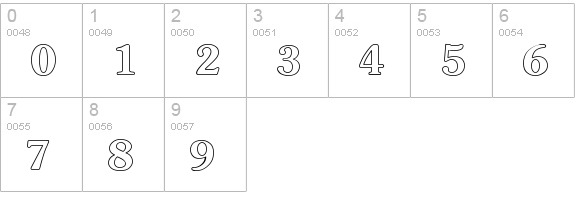
Souvenir-Light-Bold Hollow Font Details
Souvenir-Light-Bold Hollow is a refined, elegant variant in the Souvenir typeface family \xE2\x80\x94 well suited to elegant body text, refined sub-headings, and luxury branding.
Introducing Souvenir-Light-Bold Hollow font, a visually captivating typeface that effortlessly blends elegance and modernity. This exceptional font is perfect for adding a touch of sophistication to any design project, whether it be logos, branding, invitations, or editorial layouts. With its unique and intricate hollow design, Souvenir-Light-Bold Hollow font stands out from the crowd, effortlessly capturing attention and leaving a lasting impression. Its bold and strong letterforms exude confidence while maintaining a delicate balance, making it suitable for a wide range of creative purposes. What sets Souvenir-Light-Bold Hollow font apart is not just its remarkable aesthetics, but also the fact that it is available for free! Yes, you read that right. This stunning font can be freely downloaded at FontsMarket.com, allowing you to elevate your designs without breaking the bank. Whether you are a professional designer or an amateur enthusiast, Souvenir-Light-Bold Hollow font is an invaluable addition to your typographic arsenal. Its versatility and timeless appeal make it a must-have for any designer looking to create impactful and visually striking designs. So why wait? Download Souvenir-Light-Bold Hollow font today from FontsMarket.com and unlock a world of creative possibilities. Express your unique vision with this captivating typeface and watch your designs come to life with an air of sophistication and elegance.